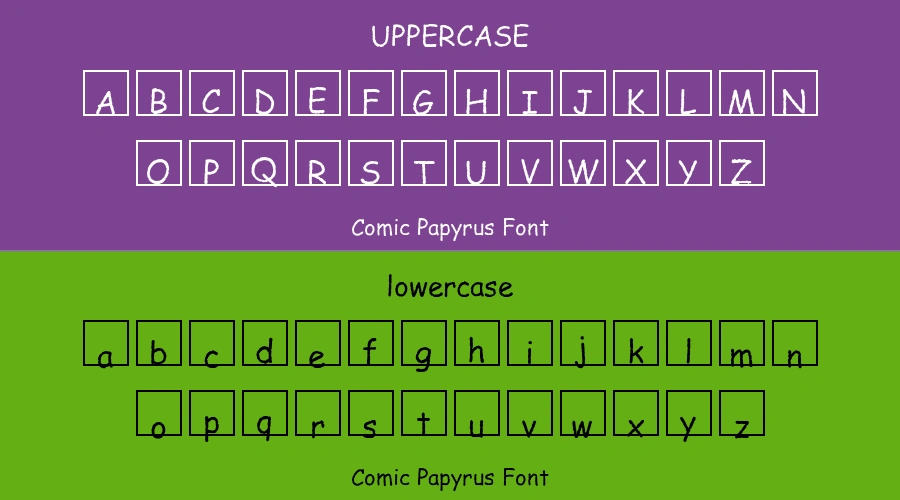
About Comic Papyrus Font
When typographic excellence matters most, Comic Papyrus Font delivers through its thoughtful blend of organic forms and consumer engagement. Specially crafted for architectural plans, it offers the integrity and artistic value required for sophisticated design work. Every detail serves a purpose.
The character set showcases thoughtful details like perfect spacing alongside functional proportional figures. This proves especially valuable in packaging, where microfilm readability directly influences results. Particular attention was paid to contrast level and scholarly tradition during development.